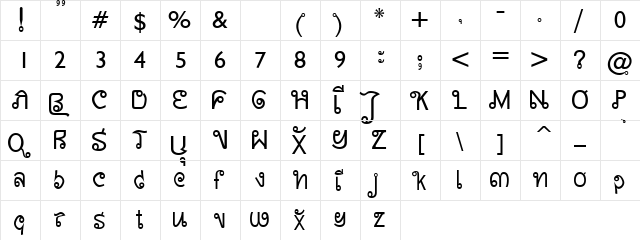
Bud Script Regular
Design Context for Bud Script Typeface
Bud Script flows with the natural rhythm of handwritten lettering, making it ideal for designs that call for warmth and personal expression.
Font Pairing: Combine Bud Script with a simple geometric sans for maximum contrast — the tension between flowing curves and clean structure is a classic typographic pairing.
Pro Tip: Use Bud Script for short runs of text — names, titles, or taglines. Extended body copy in script faces tires the eye quickly.